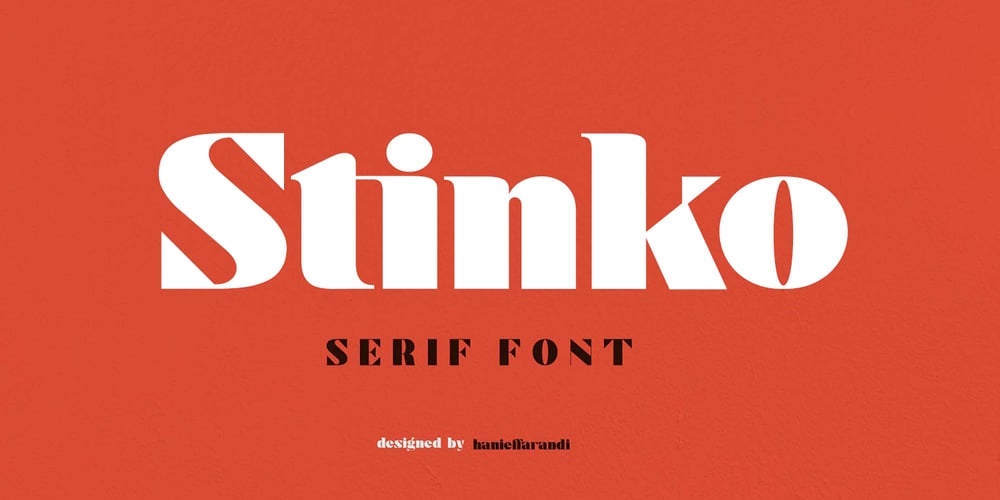
Stinko Font Family was designed by Hanief Farandi and published by Hanzel Space. Stinko contains 1 styles and family package options. Introducing the “Stinko” font designed elegantly and simply, with a combination of bold, thick, and symmetrical. This font is suitable for your work needs. Web font Uppercase Lowercase Numbers & Punctuation Any Questions? just ask! Designed by hanief farandi